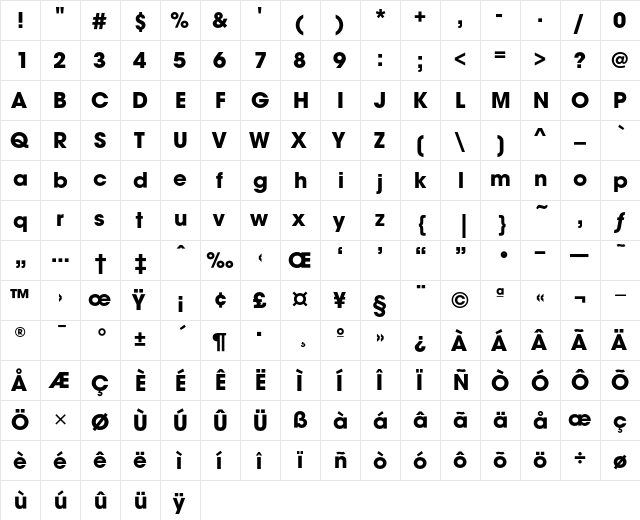
AvantGardeMdITC Bold
Design Context for AvantGardeMdITC Typeface
AvantGardeMdITC takes a measured approach to typography — its balanced proportions and neutral character make it a reliable workhorse for both digital and print work. The heavy weight commands attention and anchors typographic hierarchies.